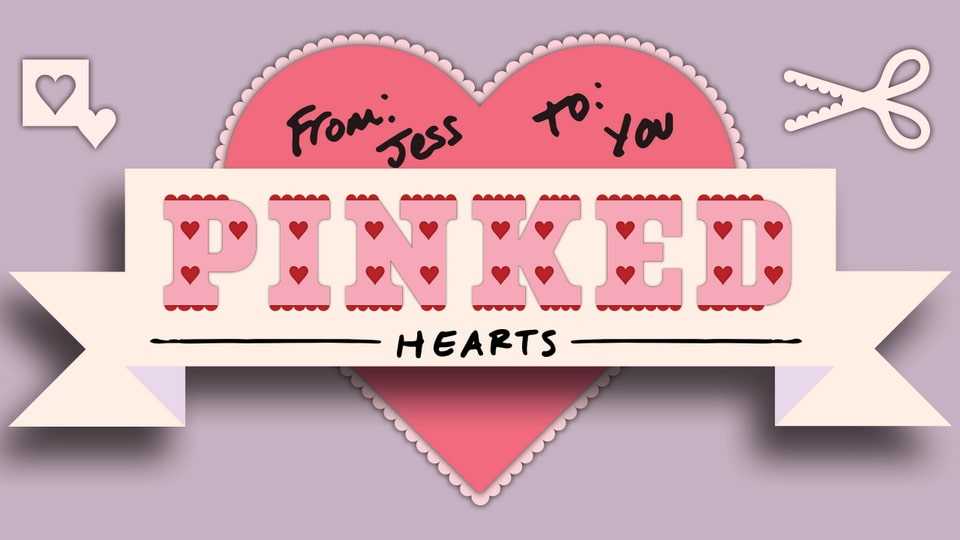
Download Pinked Hearts font, a decorative display typeface inspired by pinking scissors, a heart shaped hole punch and creating layers of paper. It also has it’s roots in chromatic wood type of the 1800s.
Designer: Jess Latham